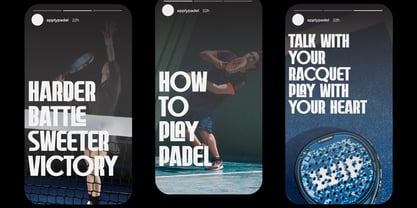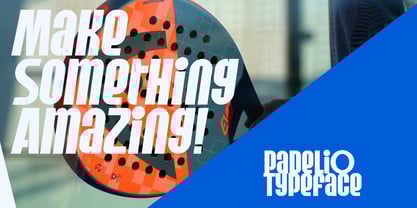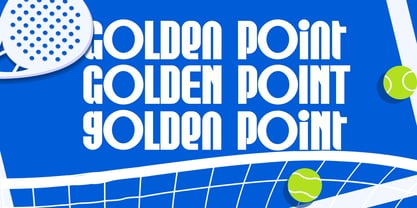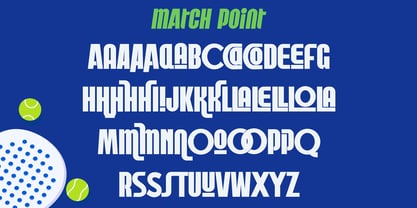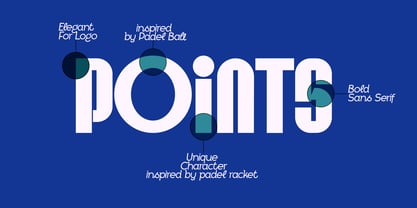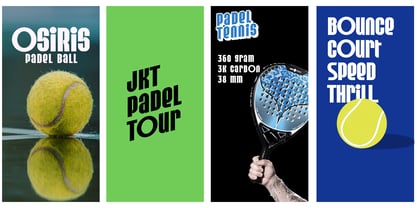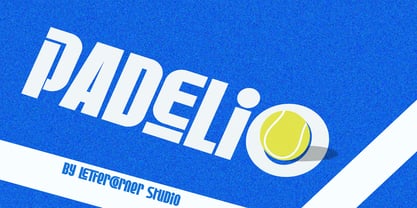
Padelio
by Mevstory Studio
The Padelio Font Family was designed by Muhammad Afif Ersya and published by Mevstory Studio. Padelio contains 2 styles and family package options. More about this family
Introducing "Padelio" – A Typeface Born from the Spirit of Padel.
Fast. Playful. Precise — just like the game itself.
"Padelio" is a bold and modern display font inspired by the high-energy rhythm of padel. Designed with a unique twist, the O takes the shape of a vibrant padel ball, while the i cleverly mimics a padel racket — capturing the essence of movement, focus, and play.
Whether you're designing for sportswear, events, or active lifestyle brands, Padelio delivers impact with every letter. Serve your message with style — and make every word a winner.